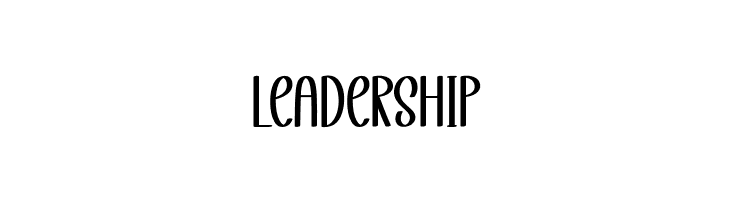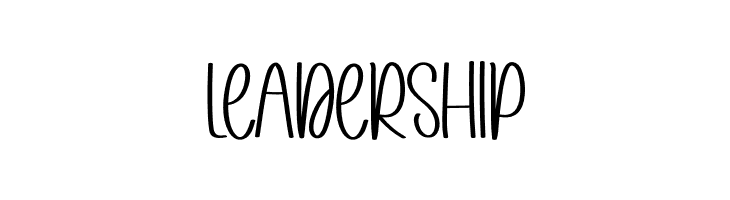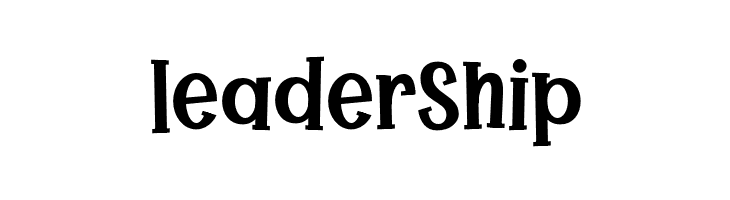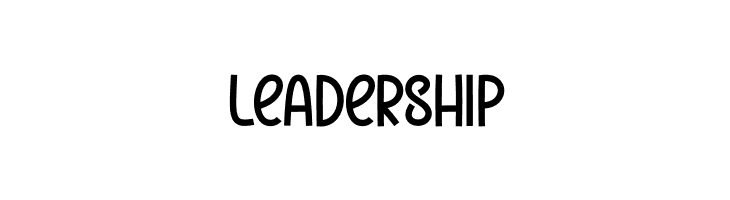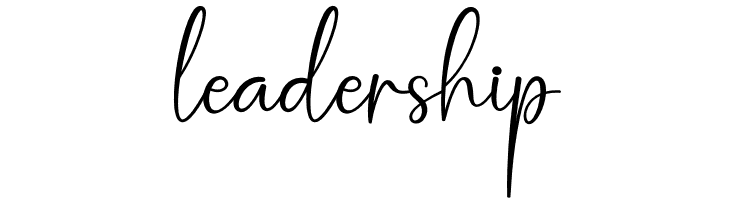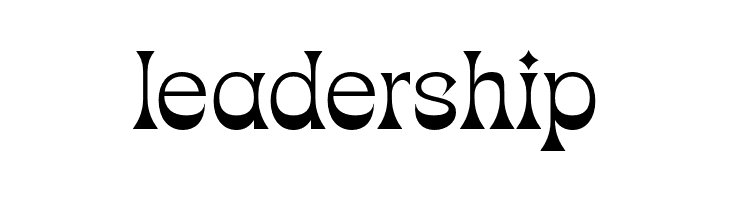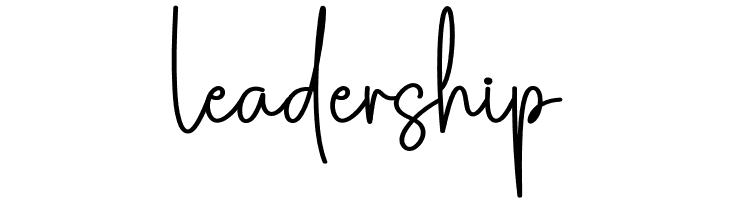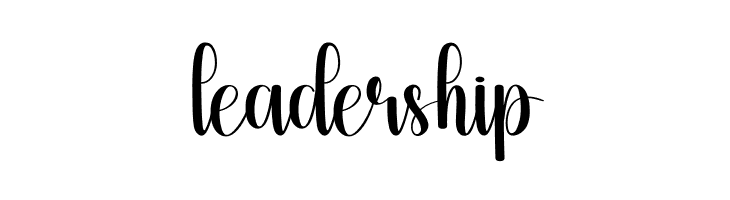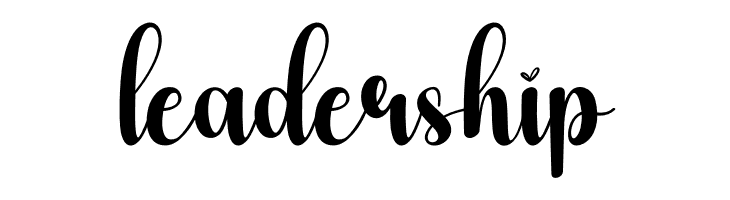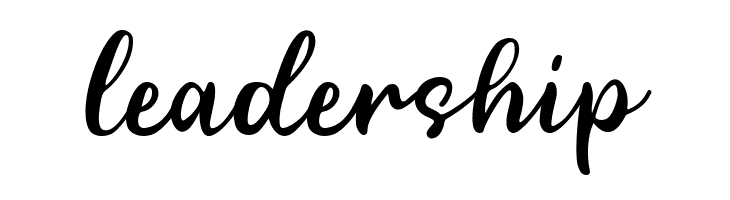
A whimsical, rounded sans-serif font with playful curves and tall, narrow proportions.
Bold, brush-style script with festive, hand-drawn character.
Whimsical handwritten script with festive, looping strokes.
Bold, playful display font with a hand-drawn, distressed look.
Playful rounded sans-serif with uniform strokes.
Ornate, high-contrast script with elegant flourishes.
Expressive, festive script with tall uppercase and bold, rounded lowercase.
Tall, playful handwritten font with rounded, narrow characters.
Bold, brush-style script with a warm, handwritten look.
A tall, playful sans-serif with rounded, hand-drawn qualities.
Whimsical, bold script with decorative loops and a festive feel.
A bold, decorative font with festive swirls and playful shapes.
Ornamental monogram font with heart and butterfly motifs.
A whimsical, handwritten script with tall, looping forms and festive flair.
Expressive handwritten script with tall, narrow, and connected letters.
Decorative serif font with high contrast and festive, ornamental style.
Whimsical, handwritten script with tall, narrow characters.
Bold, cursive script with connected, flowing strokes.
Festive, star-accented script font with holiday-themed embellishments.
Expressive, bold brush script with playful curves.
Festive, hand-drawn display font with Christmas motifs and bold outlines.
Playful, tall handwritten font with a whimsical style.
Tall, thin, handwritten script with playful character.
Sharp, gothic-inspired display font with bold, angular strokes.
Bold, angular display font with a graffiti and sci-fi vibe.
Playful, rounded sans-serif with a hand-drawn look.
Rounded, playful sans-serif with uniform strokes and friendly shapes.
Playful handwritten script with festive, whimsical strokes.
Spiked, gothic display font with bold, dramatic shapes.
Bold, textured handwritten display font with playful character.
Playful handwritten sans-serif with tall, narrow letters.
A decorative serif font with playful, curly accents and a festive vibe.
A bold, energetic brush script with a graffiti-like flair.
A bold, hand-drawn display font with a festive, playful feel.
Playful, rounded sans-serif with a hand-drawn appearance.